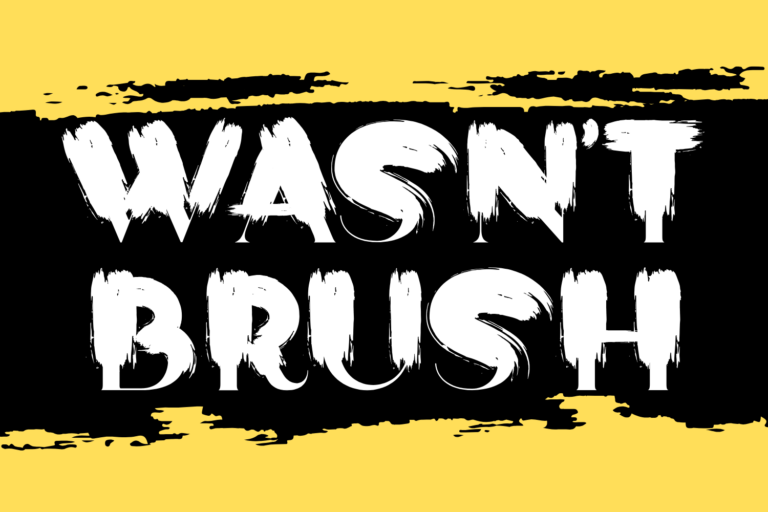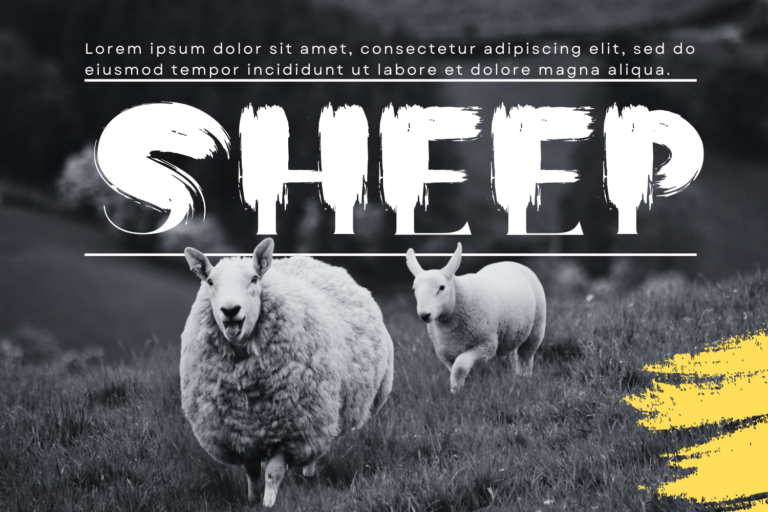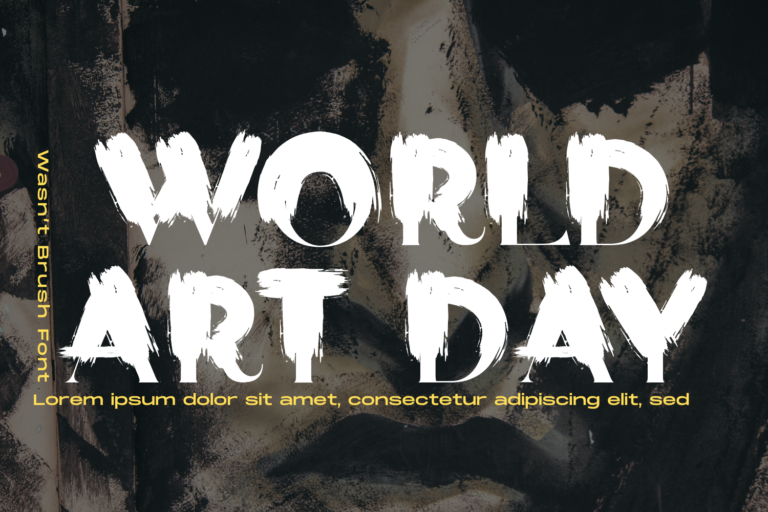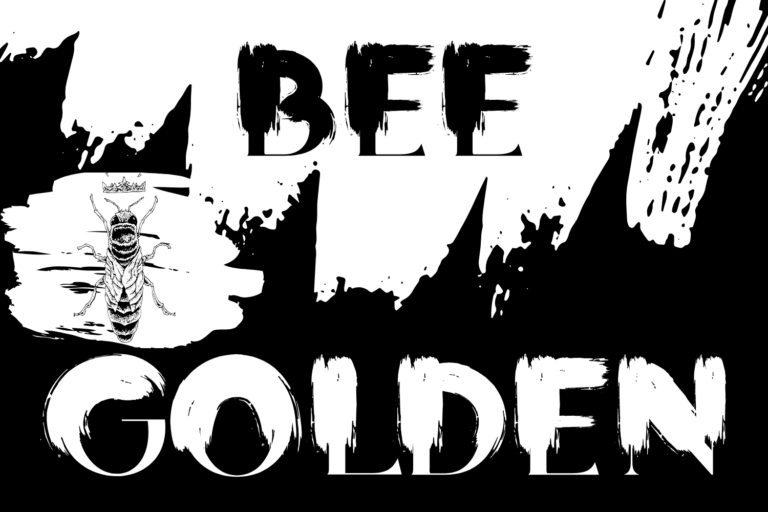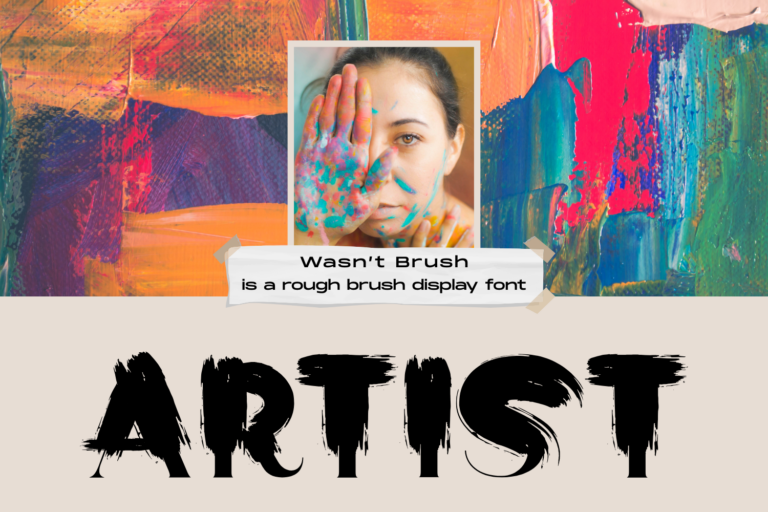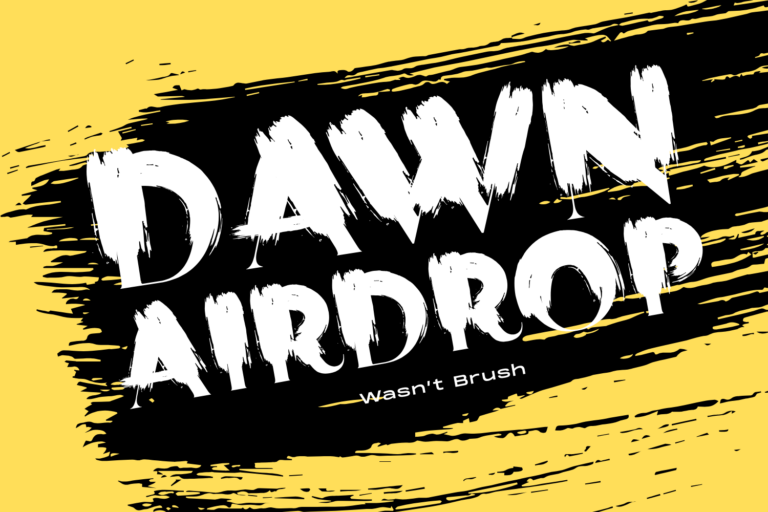
Wasn’t Brush Font – A Rough Brush Display Font, a hand-drawn brush bold and expressive brush font that captures the raw energy of hand-painted strokes. Every letter is designed to convey motion, power, and artistic edge — perfect for projects that demand attention and attitude. This typeface blends imperfect textures with fierce personality, making it ideal for album covers, movie posters, street fashion branding, event flyers, and more.
Wasn’t Brush Font